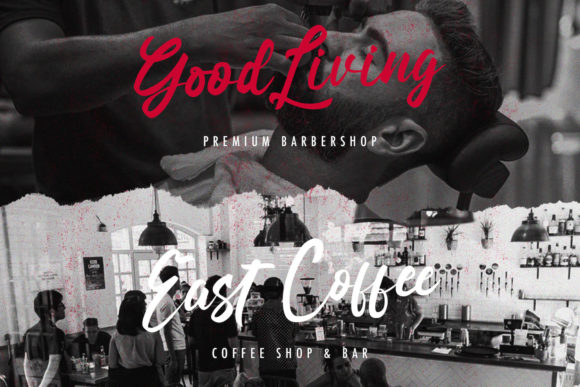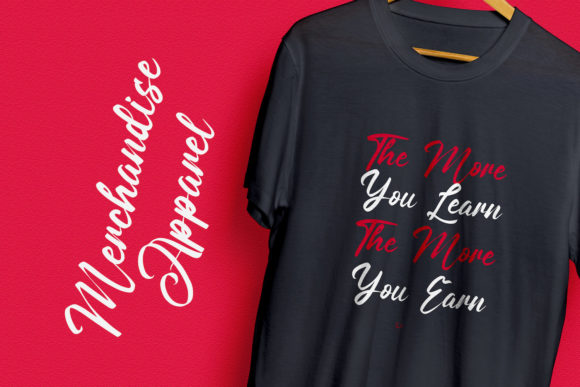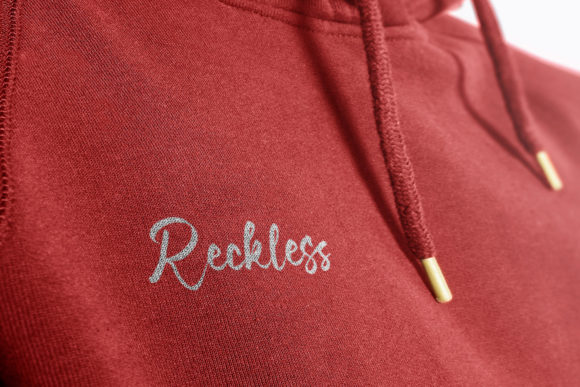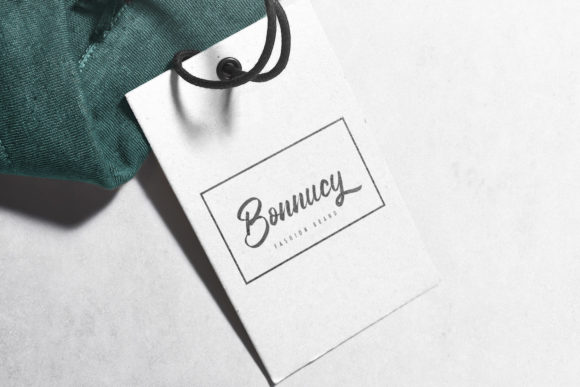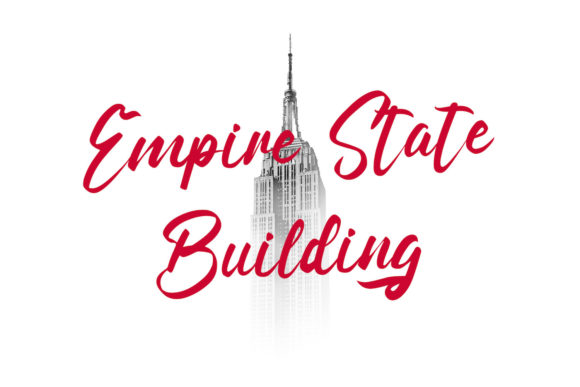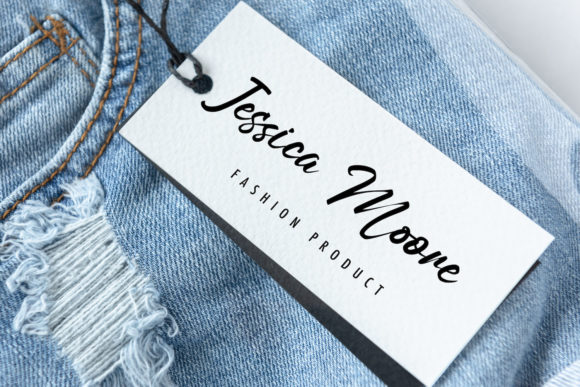
Introducing Angilla Denis Font: Elevate Your Designs with Elegance and Style
In the world of typography, fonts play a crucial role in conveying messages, expressing emotions, and creating visual identities. For designers and crafters, finding the perfect font that combines readability, friendliness, and style can be a daunting task. However, if you’re looking for a modern script font that ticks all these boxes, look no further than Angilla Denis Font. In this article, we’ll delve into the features, benefits, and uses of Angilla Denis, and explore how it can elevate your designs to new heights.
What is Angilla Denis Font?
Angilla Denis is a modern script font that boasts smooth curves, making it an ideal choice for fashion branding, editorial designs, and any project that requires a touch of elegance. This font is designed to be highly readable, friendly, and stylish, making it perfect for a wide range of applications, from luxury brand logos to social media graphics.
Key Features of Angilla Denis Font
- Smooth Curves: Angilla Denis is characterized by its smooth, flowing curves that give it a sophisticated and refined look.
- Readability: Despite its elegant design, Angilla Denis is highly readable, even at small font sizes, making it perfect for body text and captions.
- Friendliness: The font’s friendly demeanor makes it approachable and inviting, ideal for brands that want to establish a warm and welcoming tone.
- Style: Angilla Denis exudes style and sophistication, making it perfect for high-end fashion brands, luxury products, and editorial designs.
Benefits of Using Angilla Denis Font
So, why should you choose Angilla Denis for your next project? Here are just a few benefits of using this versatile font:
- Versatility: Angilla Denis can be used for a wide range of applications, from logos and branding to social media graphics and editorial designs.
- Elegance: The font’s smooth curves and elegant design make it perfect for high-end fashion brands and luxury products.
- Readability: Angilla Denis is highly readable, even at small font sizes, making it perfect for body text and captions.
- Uniqueness: With its unique blend of elegance and friendliness, Angilla Denis is sure to set your brand apart from the competition.
Using Angilla Denis Font in Your Designs
So, how can you incorporate Angilla Denis into your designs? Here are a few ideas to get you started:
- Logos and Branding: Use Angilla Denis as a logo font or for branding materials, such as business cards and letterheads.
- Editorial Designs: Angilla Denis is perfect for editorial designs, such as magazines, newspapers, and blogs.
- Social Media Graphics: Use Angilla Denis to create eye-catching social media graphics, such as Facebook posts and Instagram stories.
- Fashion Branding: Angilla Denis is ideal for fashion branding, including luxury fashion brands and high-end fashion products.
In conclusion, Angilla Denis Font is a modern script font that offers a unique blend of elegance, readability, and friendliness. With its smooth curves and stylish design, it’s perfect for fashion branding, editorial designs, and any project that requires a touch of sophistication. Whether you’re a designer or crafter, Angilla Denis is a versatile font that can elevate your designs to new heights. So why not give it a try and see the results for yourself?